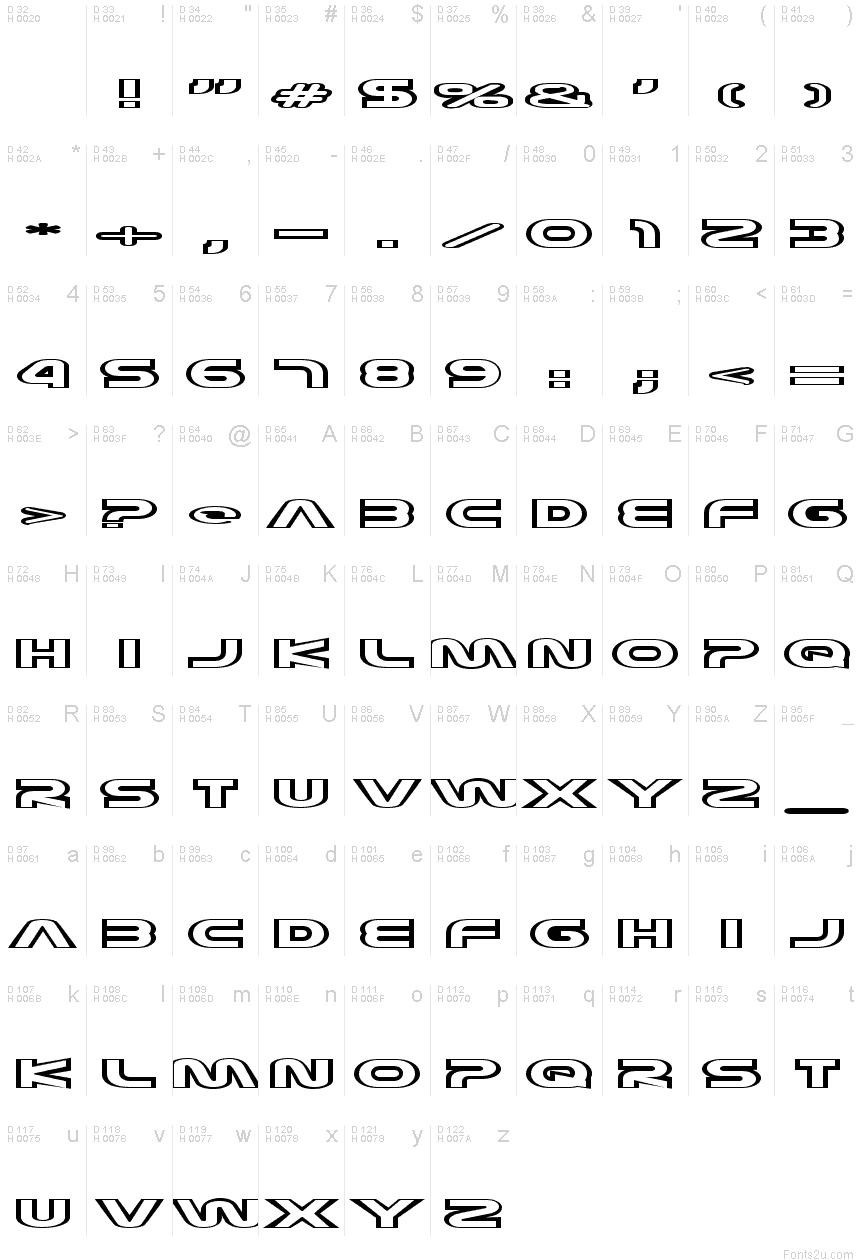
Joy Circuit
This font was once part of Typodermic Fonts' Larabie Fonts collection but has since been discontinued. It's no longer supported but you're free to use it for commercial use. Check out Nasalization at Typodermic for something similar.